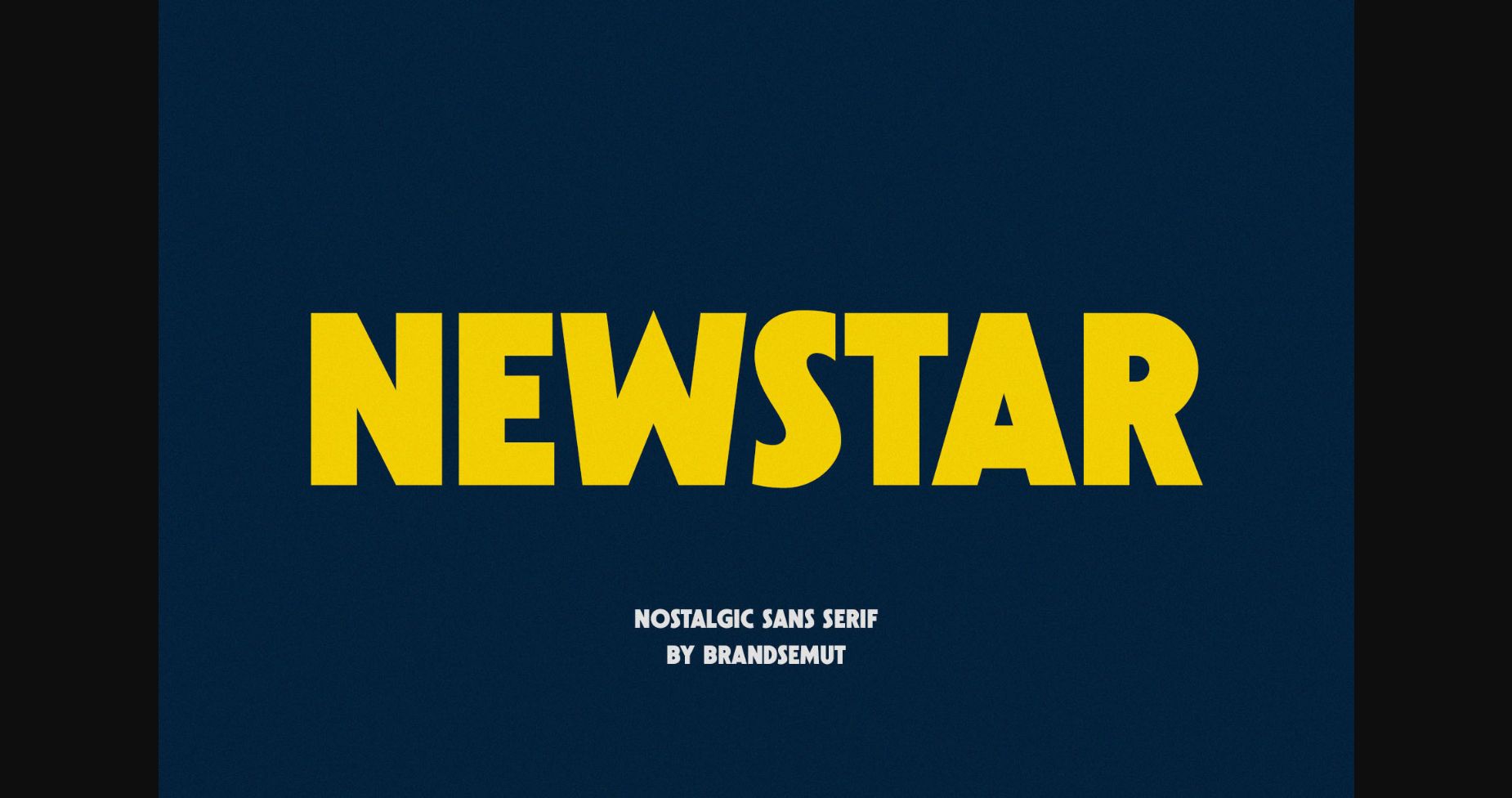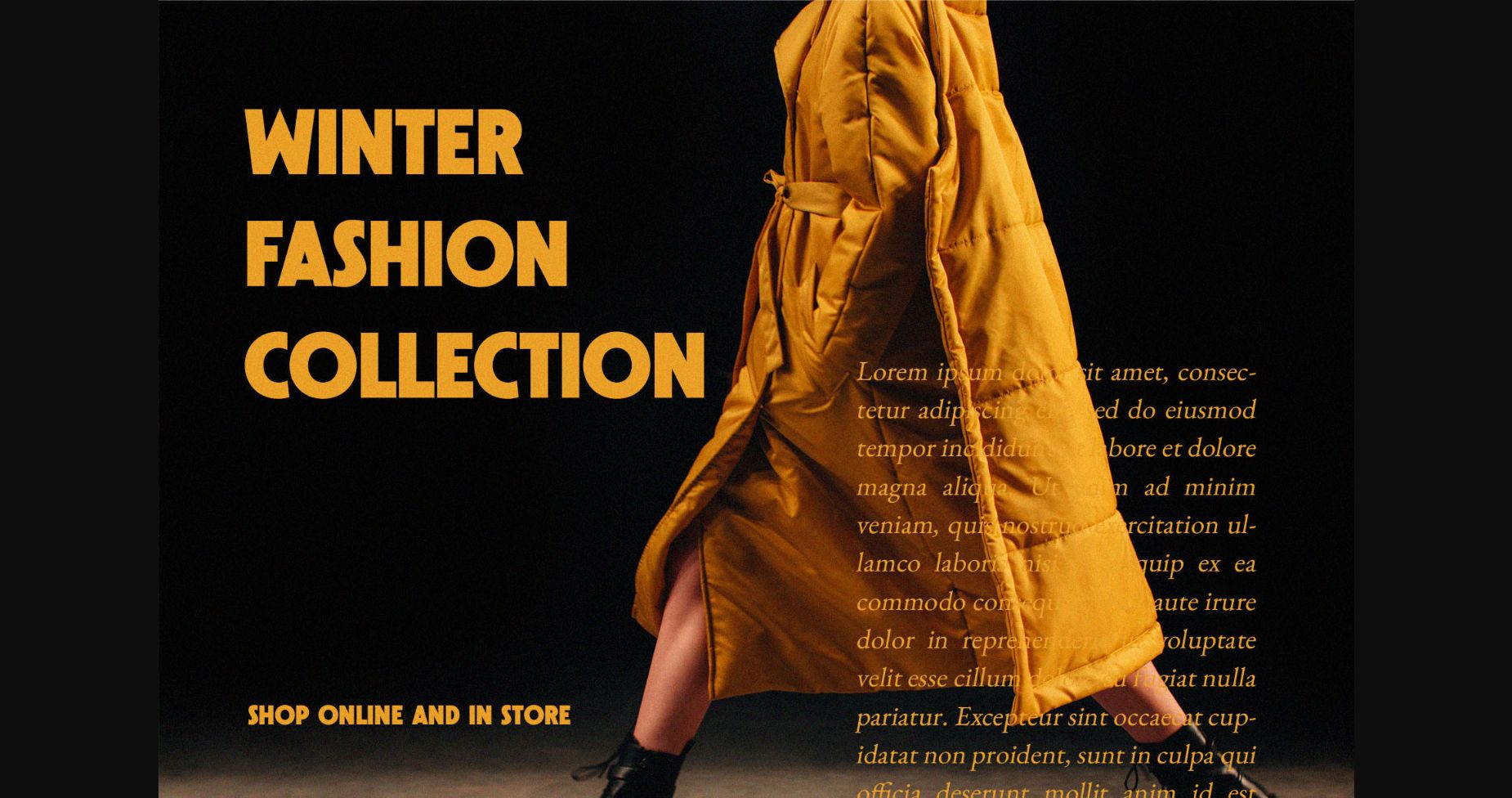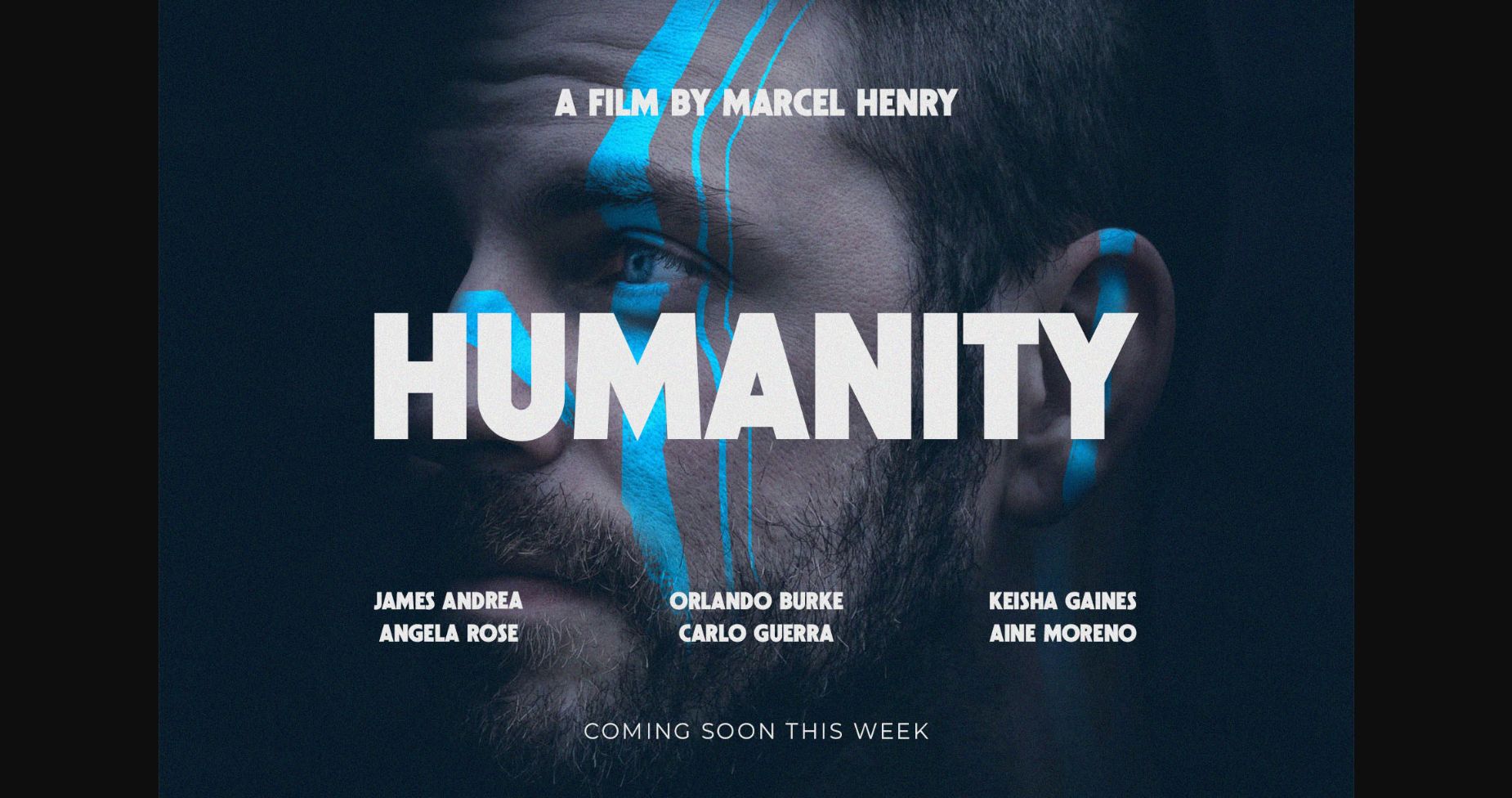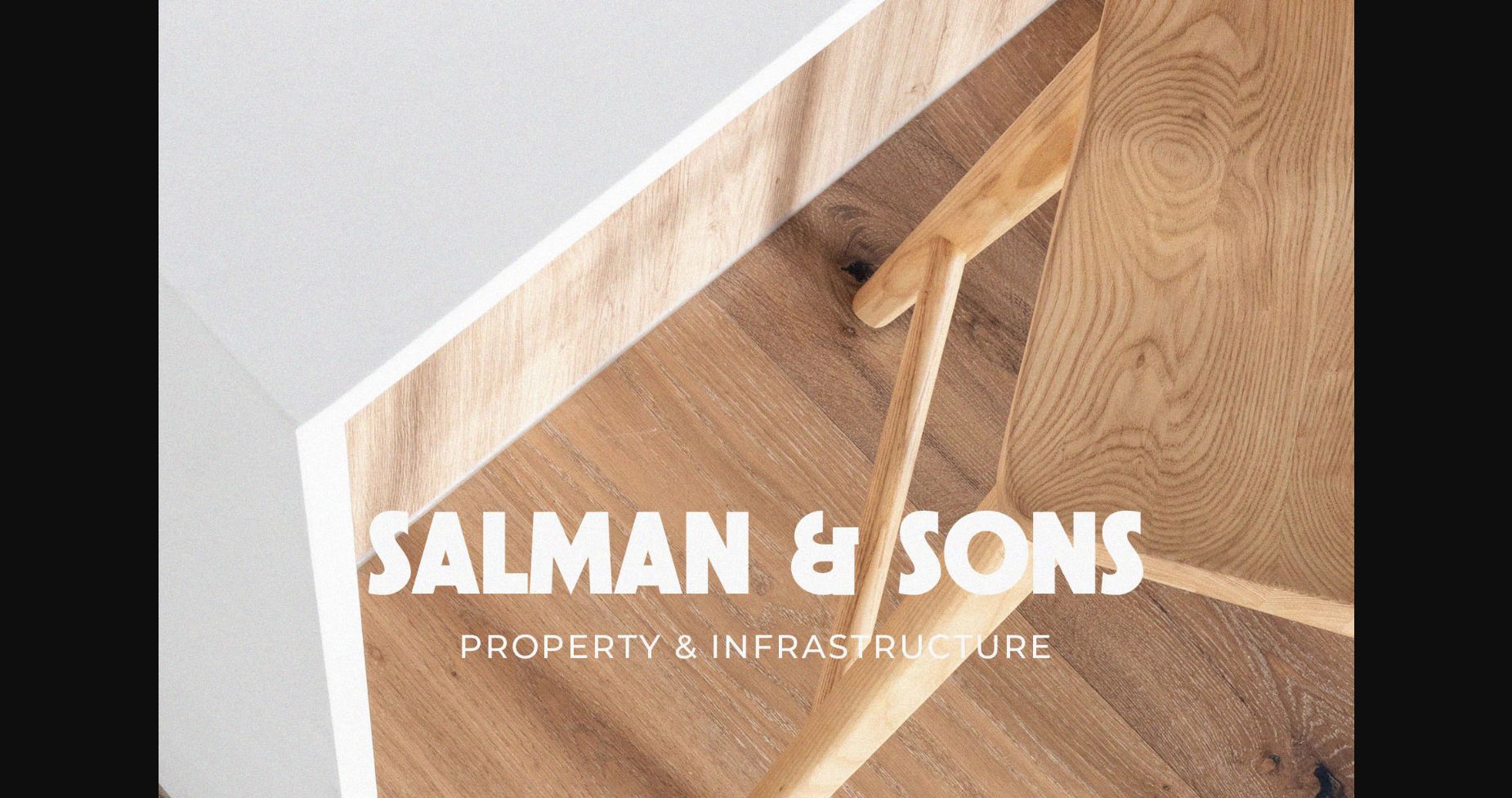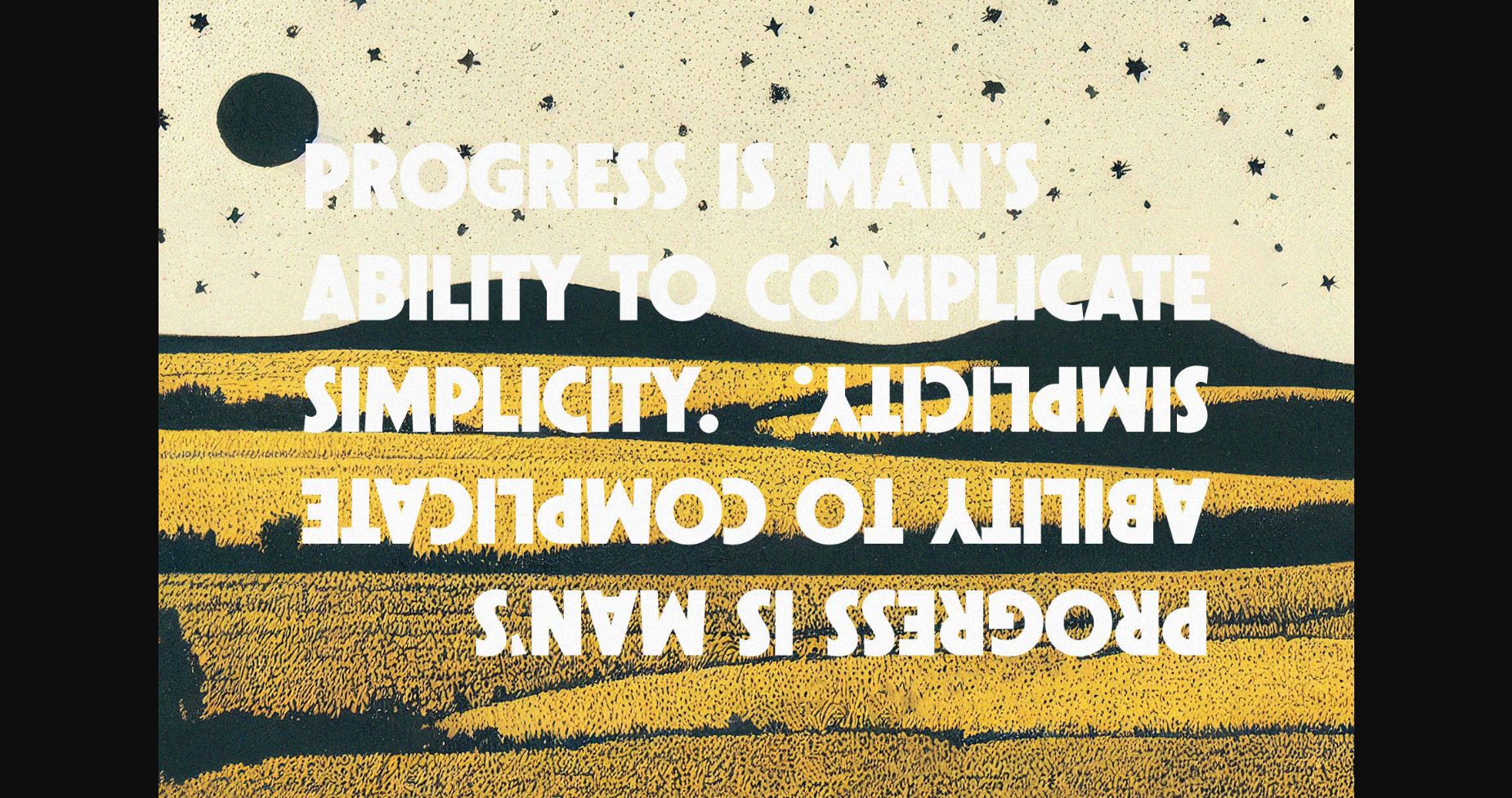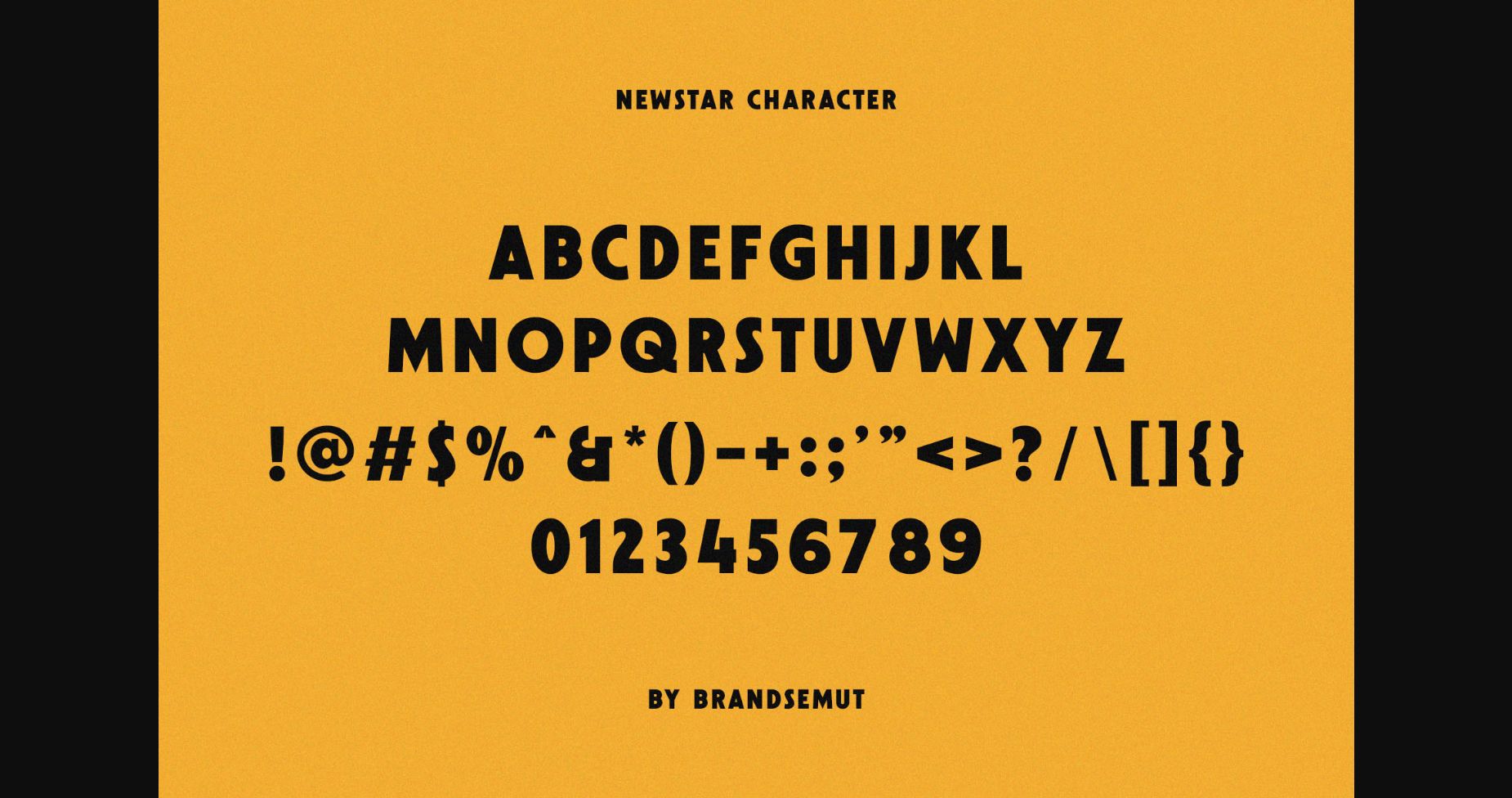
Newstar Font
About Newstar Font
Newstar is a modern and nostalgic sans serif font, best used as a display for headings, logos, branding, magazines, product packaging, and invitations. Newstar comes with clean lines and smooth curves, giving any project an extra touch of class.